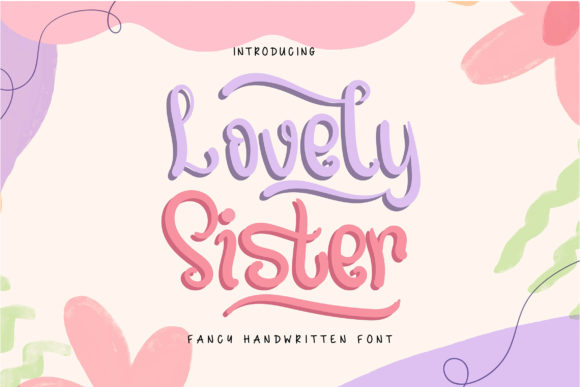
Journey into a world of timeless elegance and vintage charm with Lovely Sister Font, a captivating script font imbued with a touch of nostalgia. Crafted with meticulous attention to detail by the renowned Vunira, Lovely Sister is an exquisite font that embodies the essence of classic beauty.
Step into a realm of creativity, where Lovely Sister's graceful curves and flowing strokes ignite your imagination. Let your designs blossom with a touch of sophistication, as this font adds a layer of timeless charm to every project.
Indulge in the versatility of Lovely Sister, a font that adapts effortlessly to a wide spectrum of design endeavors. Whether you're crafting invitations with a touch of romance, designing logos that exude elegance, or creating social media posts that capture attention, Lovely Sister is your perfect companion.
With its PUA encoding, Lovely Sister grants you effortless access to a treasure trove of glyphs and swashes, empowering you to unleash your creativity and add intricate details to your designs. Elevate your projects with flourishes, ligatures, and alternate characters that bring depth and dimension to your creations.
Immerse yourself in the joy and exuberance of Lovely Sister, a font that sparks a sense of wonder and delight. Let your designs radiate with warmth and charm as Lovely Sister weaves its magic, transforming your creations into captivating masterpieces.